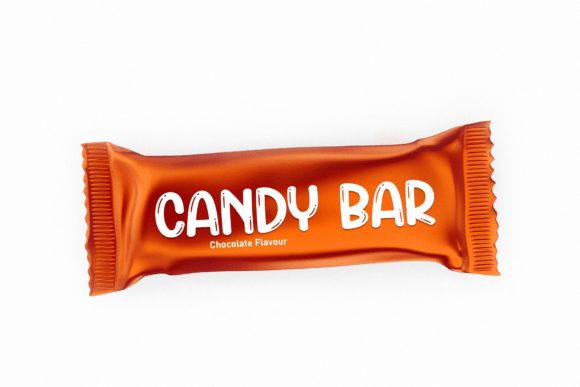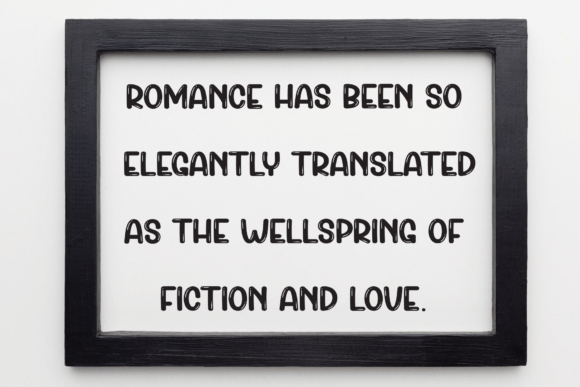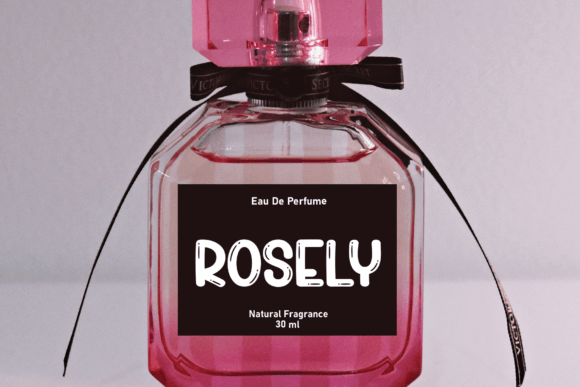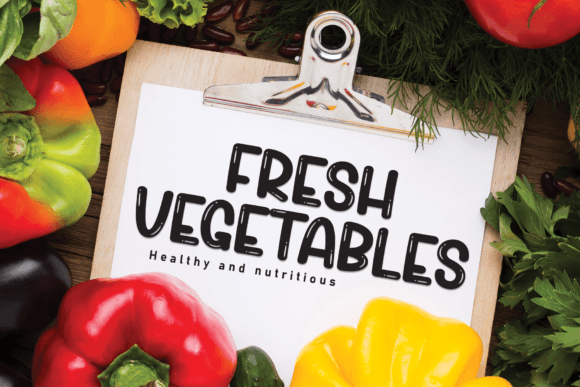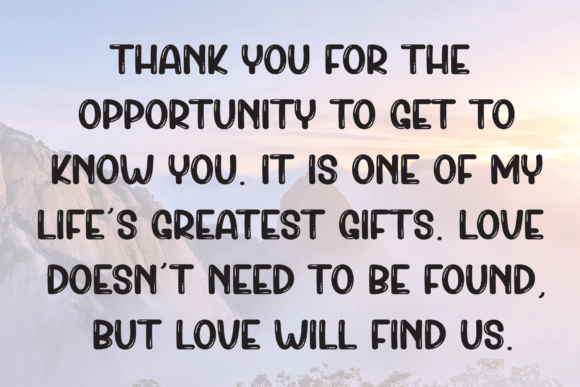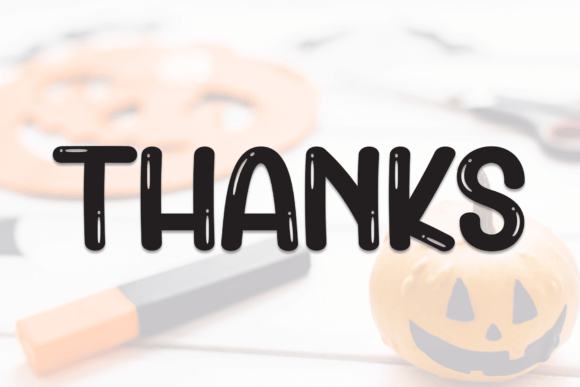
Introduction to Pumpkin Marker Font Font
Fonts play a crucial role in design, and the Pumpkin Marker Font font is a typeface that brings both character and versatility to any project. Whether you’re working on a branding project, a website, or a print design, the Pumpkin Marker Font font offers a unique style that can elevate your work.
Pumpkin Marker is a sweet and friendly handwritten font.
The Pumpkin Marker Font font is more than just a typeface – it’s a design tool that helps you communicate your message with style and clarity. Its unique character set and versatile design make it suitable for a wide range of applications, from elegant invitations to bold headlines.
With its carefully crafted letterforms and balanced proportions, the Pumpkin Marker Font font ensures readability and visual appeal across all mediums.
The Pumpkin Marker Font font stands out with its unique design, exceptional readability, and versatility across various design applications.